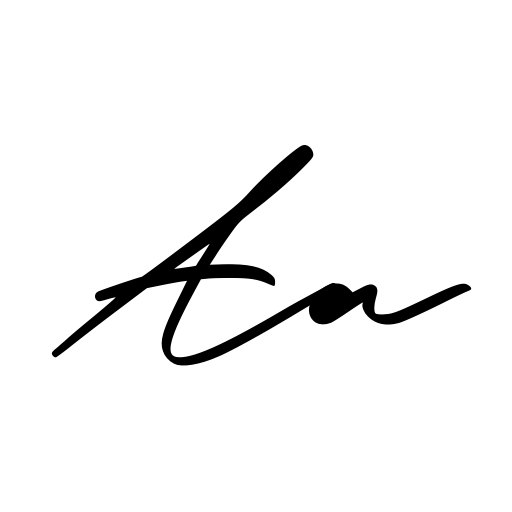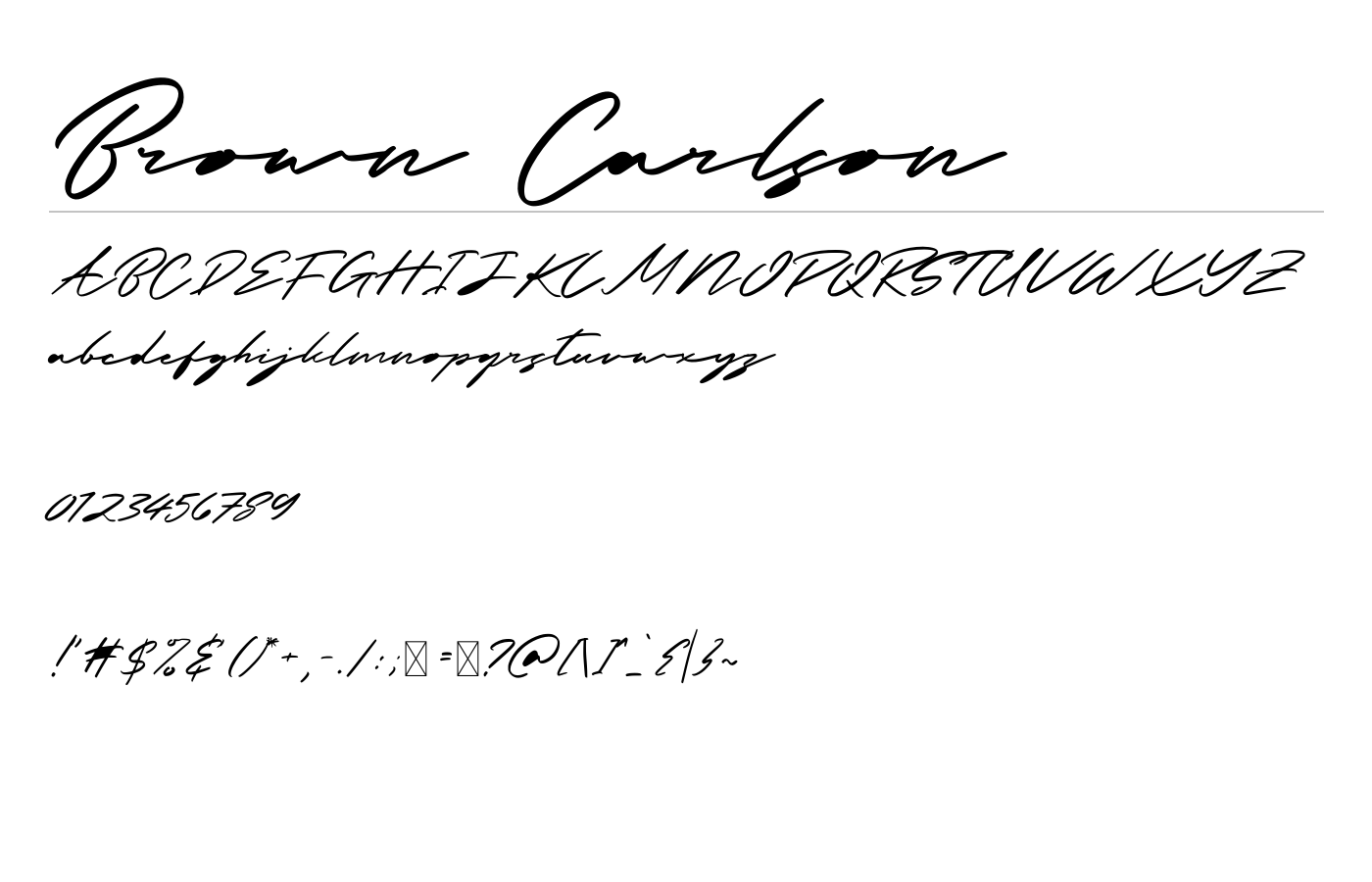
Brown Carlson is an elegant, flowing script font with a handwritten feel characterized by its smooth, connected strokes and moderate contrast. Its slim, slightly slanted letterforms convey a modern yet personal touch, making it ideal for invitations, branding, and creative projects that seek a sophisticated but approachable style. This font works especially well in settings aiming to evoke warmth and originality, such as fashion, lifestyle, and luxury communications.
Brown Carlson Font
About Brown Carlson Font
| Font family | Brown Carlson Font |
| Designer | Muhammad Husni Haikal |